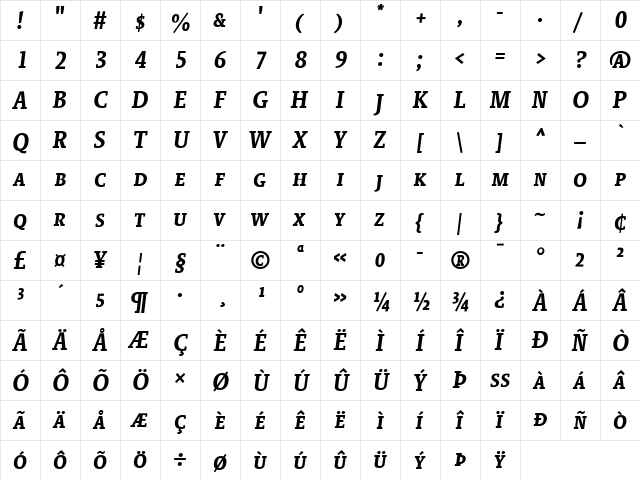
SheriffCaps Bold Italic
Design Context for SheriffCaps Typeface
SheriffCaps offers clean, dependable letterforms without strong stylistic allegiance, making it a practical choice for designers who need flexibility. Its italic angle brings a sense of urgency and motion to the letterforms. Its bold stroke weight gives it real presence on the page.
Pro Tip: Try SheriffCaps for annotation and caption copy alongside an upright companion — the contrast in angle creates a dynamic but ordered typographic system.